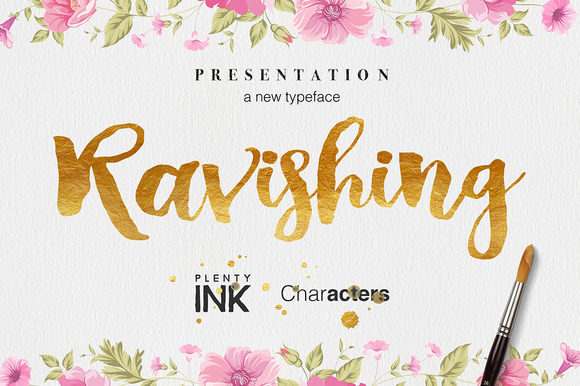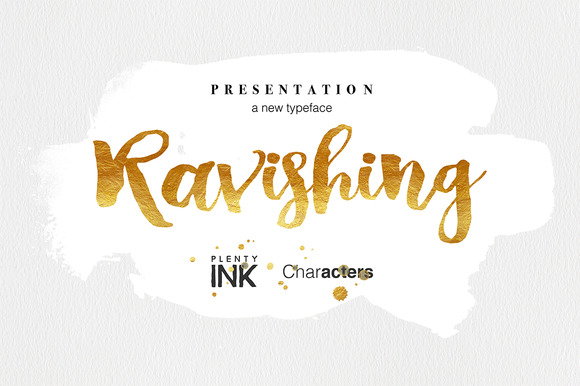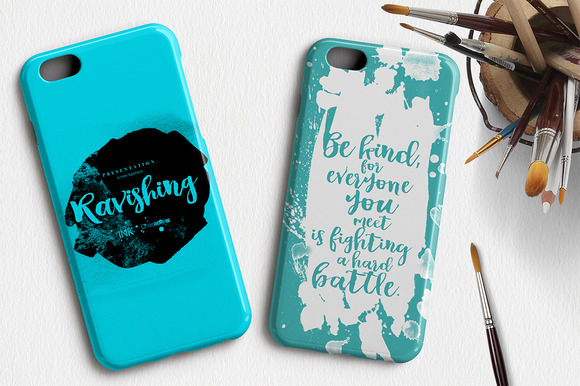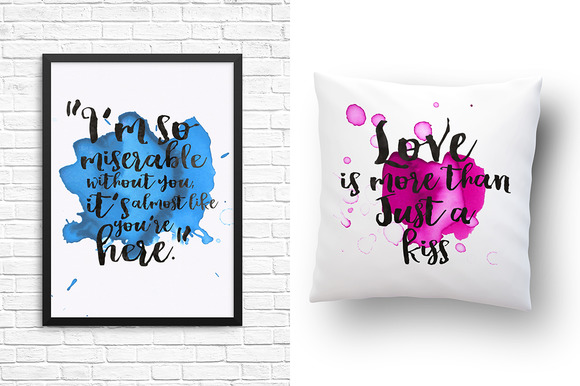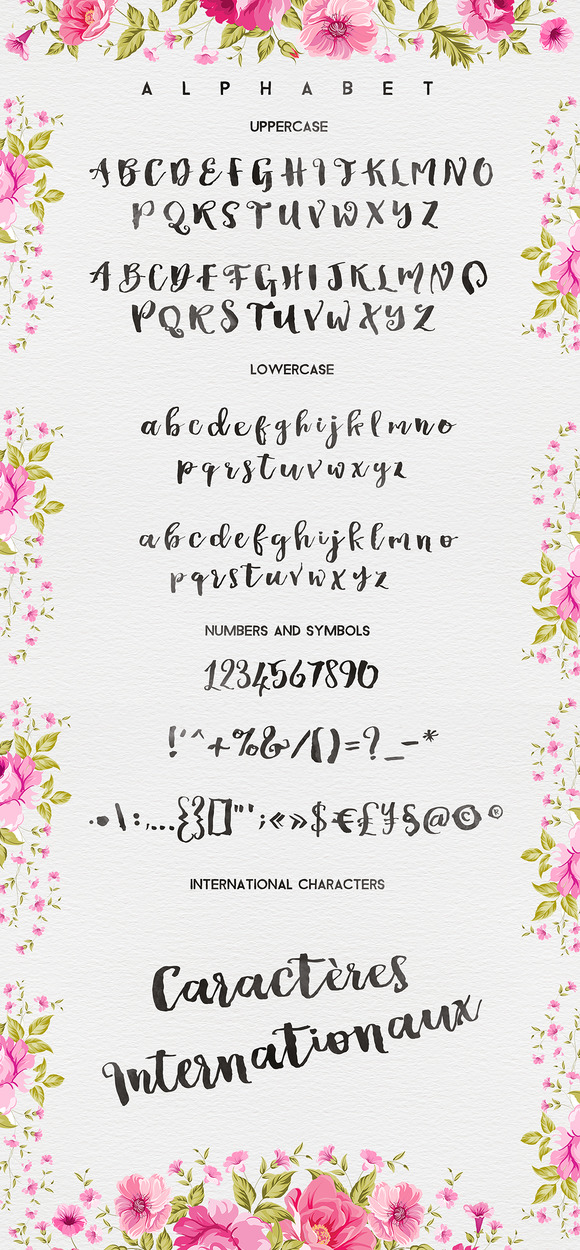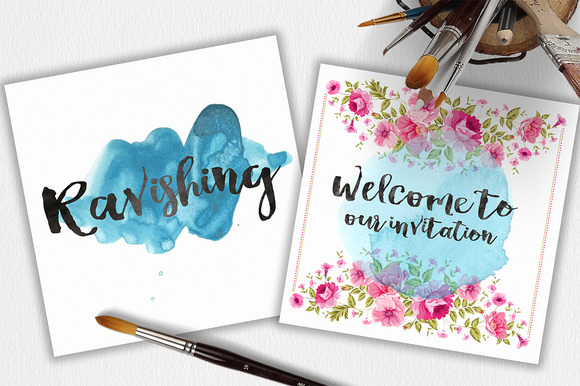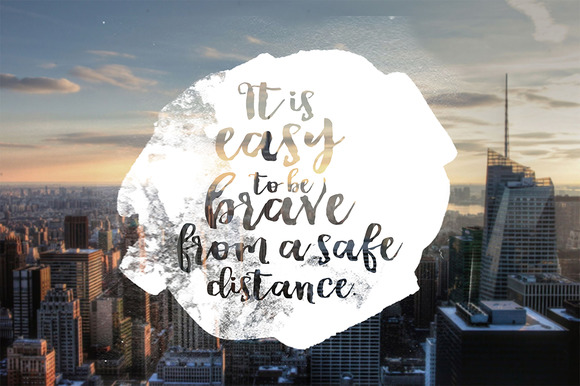
Ravishing Script Font
Ravishing font modern script font with modern style, this font will perfect for many different project ex: quotes, logo, blog header, poster, banding, fashion, apparel, letter, invitation, stationery, etc…